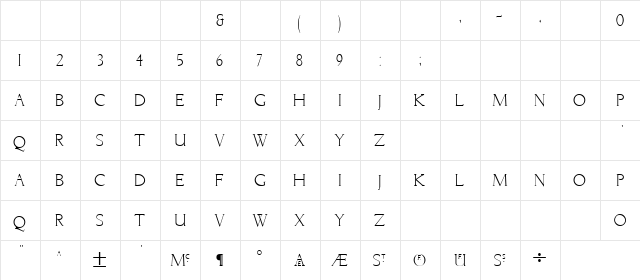
Lichtner Regular
Design Context for Lichtner Typeface
Lichtner offers clean, dependable letterforms without strong stylistic allegiance, making it a practical choice for designers who need flexibility.